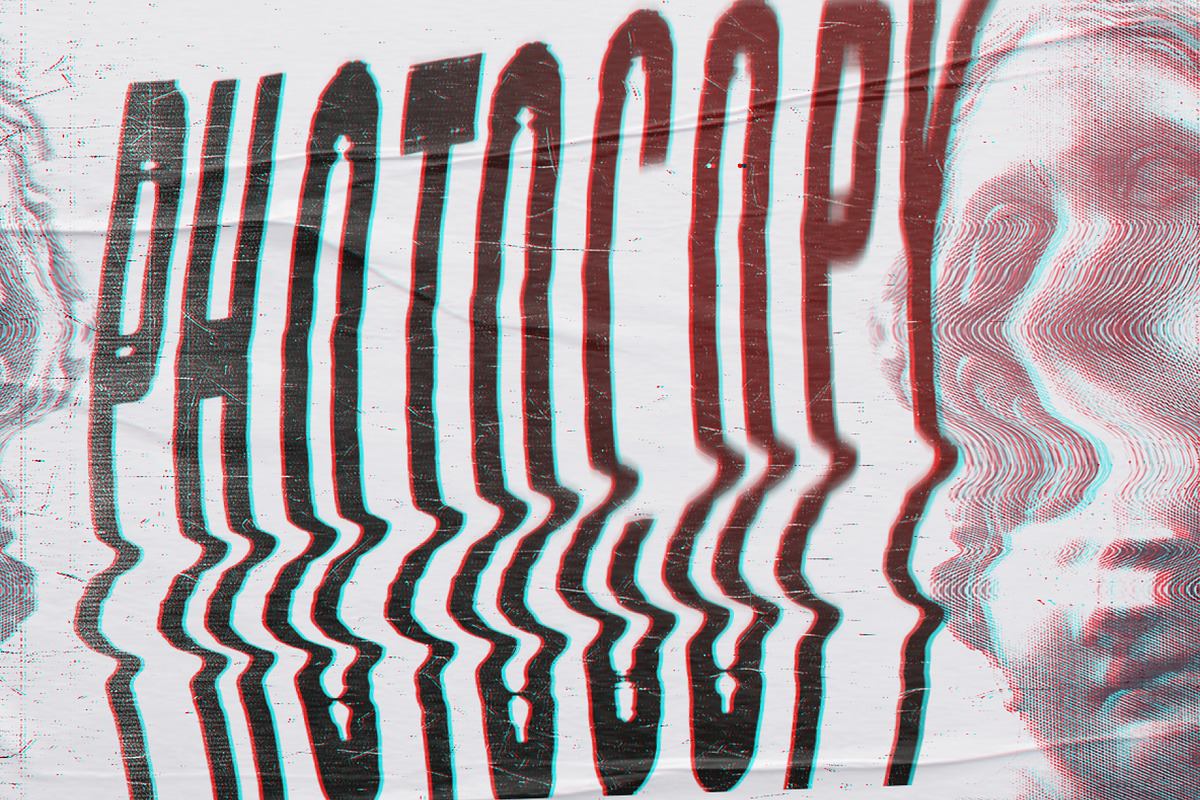
Photocopy Font Free Download is a gritty, textured display typeface inspired by vintage xerox prints and analog aesthetics. With its distressed edges and worn-out look, Photocopy is perfect for punk posters, zines, album covers, streetwear branding, and any design that craves a raw, underground vibe.
This font brings an authentic DIY feel, channeling the energy of old-school copy machines and lo-fi print techniques. Whether you're designing rebellious artwork or adding texture to modern visuals, Photocopy delivers bold personality and a touch of nostalgia.